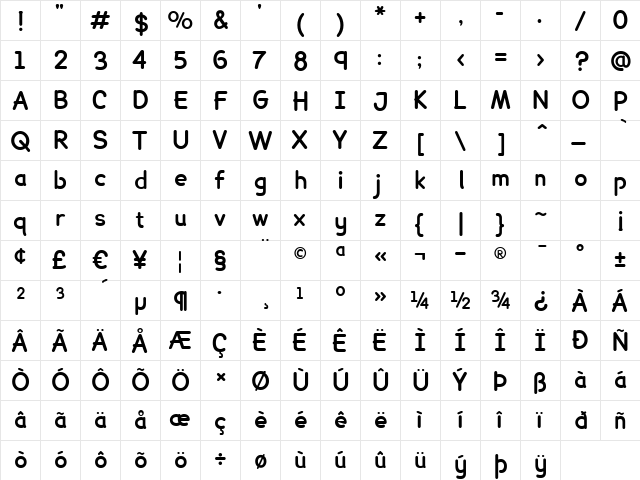
Lexia Bold Font Preview
Lexia Bold
Design Context for Lexia Typeface
Lexia takes a measured approach to typography — its balanced proportions and neutral character make it a reliable workhorse for both digital and print work. The heavy weight commands attention and anchors typographic hierarchies.